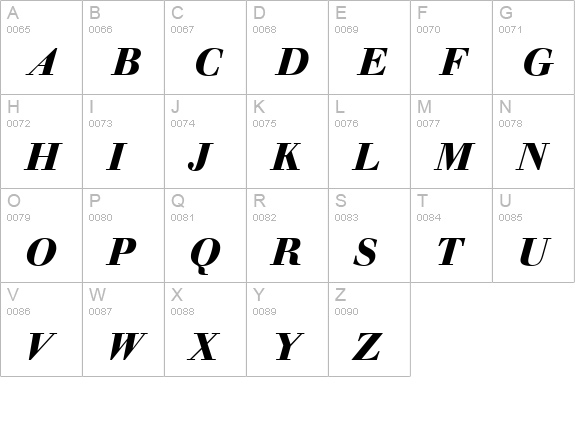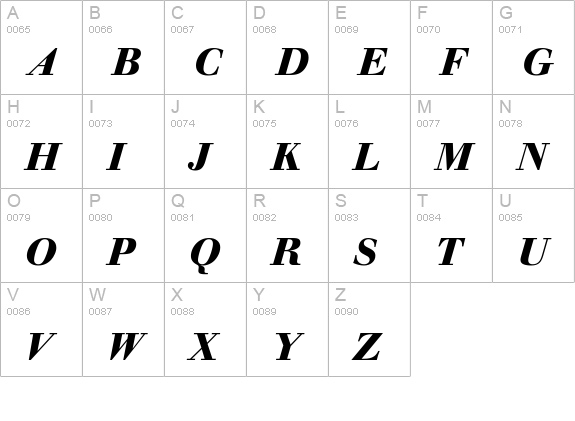
Walbaum-Original-BoldItalic Font Details
Walbaum-Original-BoldItalic is a stunning and bold font that exudes elegance and sophistication. With its strong, slanted italic style, this typeface commands attention and adds a touch of flair to any design project. The thick, bold strokes of this font make it perfect for headlines, titles, and other prominent text that needs to stand out. What's even better is that Walbaum-Original-BoldItalic is available for free download at FontsMarket.com. This means you can easily add this beautiful font to your collection and use it in a variety of projects without any cost. Whether you're working on a poster, website, or branding materials, Walbaum-Original-BoldItalic is sure to make a statement and elevate your design to the next level. Download it today and see for yourself the impact this font can have on your creations.